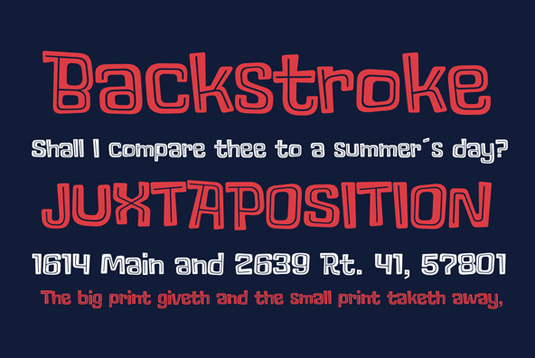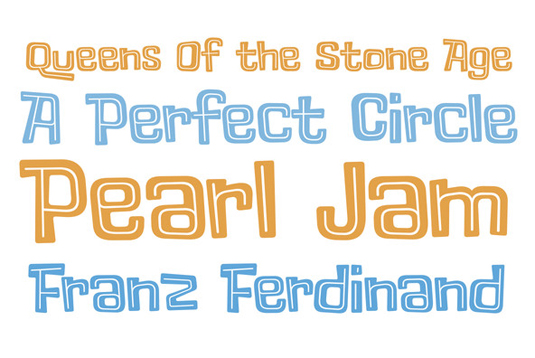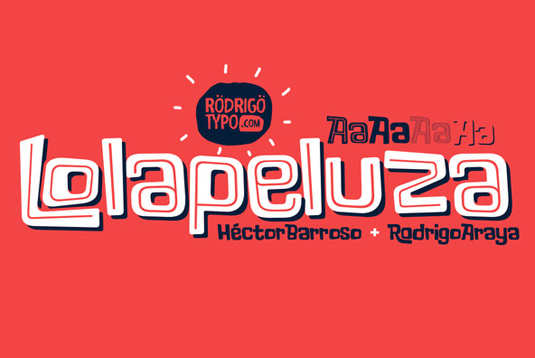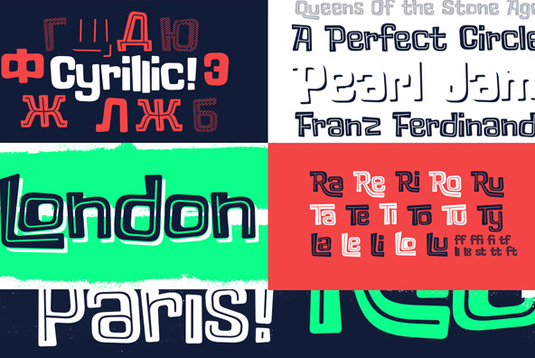
Font of the day: Lolapeluza
Each day of the week we showcase our favourite fonts – today it's Lolapeluza by RodrigoTypo.
Lolapeluza by RodrigoTypo
Today's showcased typeface is Lolapeluza, created by RodrigoTypo. The designer claims that the intention of Lolapeluza was to be a typeface that is "cheerful, entertaining, and best used for children's content" – and we agree, although its retro style makes it ideal for posters, flyers and t-shirts, too.